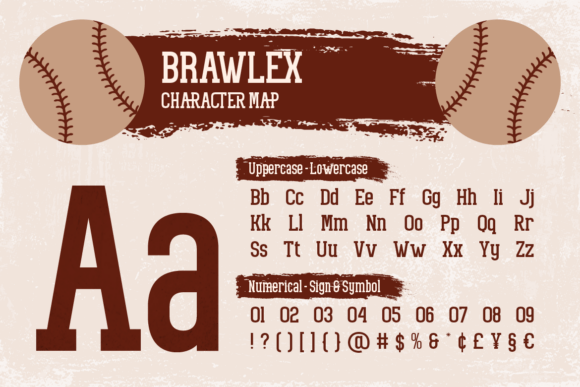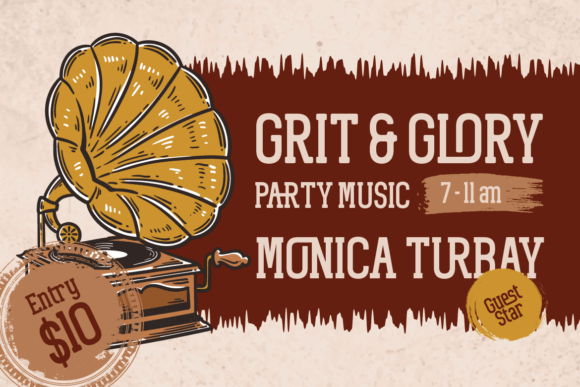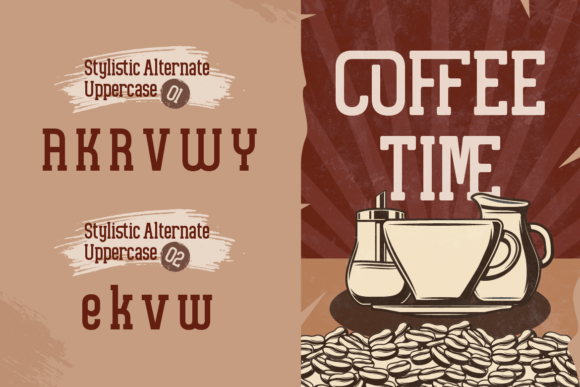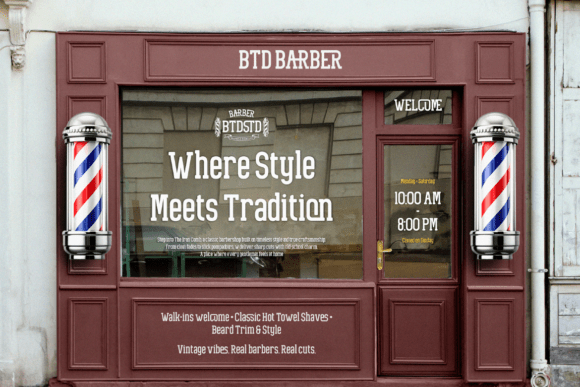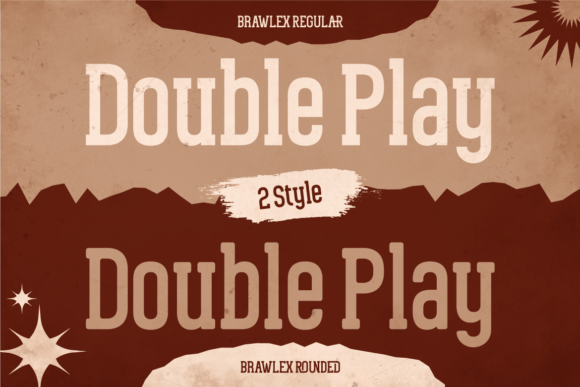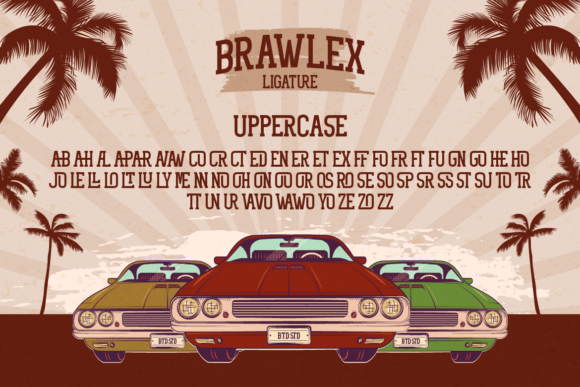
Introducing Brawlex: The Bold Display Font for Designers and Crafters
Are you looking for a font that exudes confidence and boldness? Do you want to add a touch of nostalgia to your designs? Look no further than Brawlex, a bold display font inspired by varsity aesthetics, vintage posters, western signage, and retro sport flair.
What is Brawlex?
Brawlex is a bold and confident typeface designed to stand out. It comes in two styles: Regular and Rounded, making it easy to adapt to various design needs. Whether you’re creating vintage logos, retro posters, classic signage, labels, or product packaging, Brawlex is the perfect font for you.
Inspiration Behind Brawlex
Brawlex draws inspiration from the classic varsity aesthetics, vintage posters, western signage, and retro sport flair. The font’s bold and confident design is reminiscent of the golden age of sports and entertainment. The Regular and Rounded styles offer a versatile range of options for designers, allowing them to experiment with different looks and feels.
Key Features of Brawlex
- Bold and Confident Design: Brawlex is designed to make a statement. Its bold and confident design ensures that your text stands out from the crowd.
- Two Styles: Brawlex comes in two styles: Regular and Rounded. This allows designers to experiment with different looks and feels, making it easy to adapt to various design needs.
- Vintage and Retro Flair: Brawlex’s inspiration from varsity aesthetics, vintage posters, western signage, and retro sport flair gives it a unique and nostalgic touch.
- Versatile: Brawlex works great for a wide range of design projects, including vintage logos, retro posters, classic signage, labels, product packaging, social media graphics, music event flyers, and more.
Use Cases for Brawlex
Brawlex is a versatile font that can be used for a wide range of design projects. Here are some use cases:
- Vintage Logos: Brawlex’s bold and confident design makes it perfect for creating vintage-inspired logos.
- Retro Posters: Add a touch of nostalgia to your posters with Brawlex’s unique and bold design.
- Classic Signage: Brawlex is ideal for creating eye-catching signage that stands out from the crowd.
- Labels and Product Packaging: Brawlex’s bold design makes it perfect for labels and product packaging that need to stand out on store shelves.
- Social Media Graphics: Add a touch of boldness and nostalgia to your social media graphics with Brawlex.
- Music Event Flyers: Brawlex is perfect for creating eye-catching music event flyers that grab attention.
Why Choose Brawlex?
So why choose Brawlex over other fonts? Here are a few reasons:
- Unique Design: Brawlex’s bold and confident design sets it apart from other fonts.
- Versatility: Brawlex can be used for a wide range of design projects, making it a great addition to any designer’s toolkit.
- Nostalgic Touch: Brawlex’s inspiration from varsity aesthetics, vintage posters, western signage, and retro sport flair gives it a unique and nostalgic touch.
In conclusion, Brawlex is a bold display font that is perfect for designers and crafters looking to add a touch of confidence and nostalgia to their designs. With its two styles, Regular and Rounded, Brawlex is versatile and easy to adapt to various design needs. Whether you’re creating vintage logos, retro posters, classic signage, labels, product packaging, social media graphics, music event flyers, or any design that needs strong visual impact and a nostalgia touch, Brawlex is the perfect font for you.